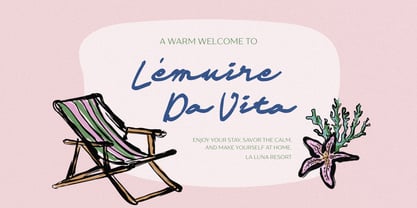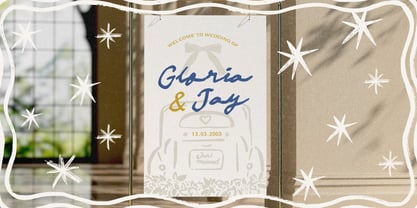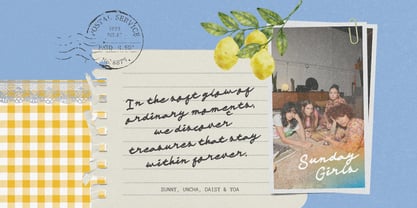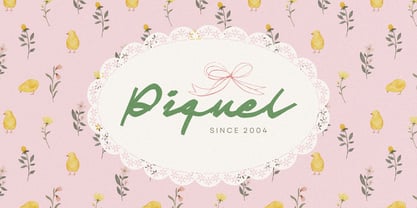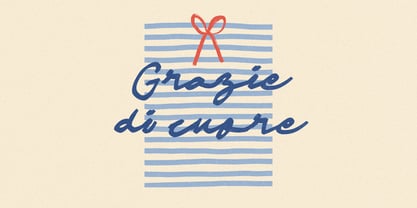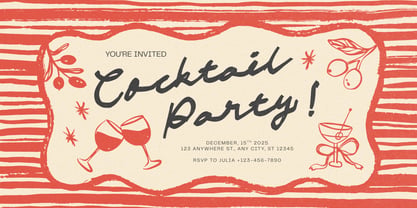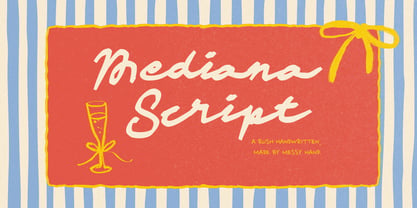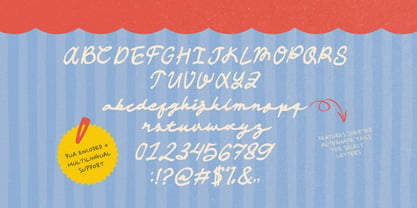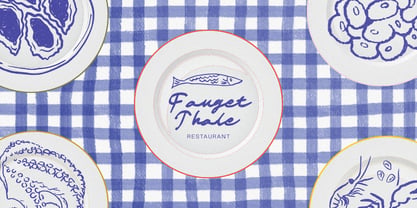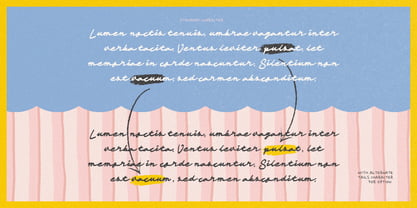
Mediana Script
The Mediana Script Font Family was designed by Hendry Juanda and published by Sloulyfe Studio. Mediana Script contains 1 styles. More about this family
Mediana Script is a lively handwritten script with a playful & nostalgic, carefree vibe that feels spontaneous and full of personality. The imperfect lines give it charm and energy, adding a warm human feel that makes your design approachable and memorable. Its quick, messy strokes capture the look of real handwriting done in a rush, making it perfect for casual branding, fun packaging, poster designs, social media graphics, or anything that needs an authentic, laid-back touch.
Features :Uppercase & lowercase, Numbers and punctuation, Sketchy doodle bonus, Alternates or Ligatures, Multilingual support & PUA encoded